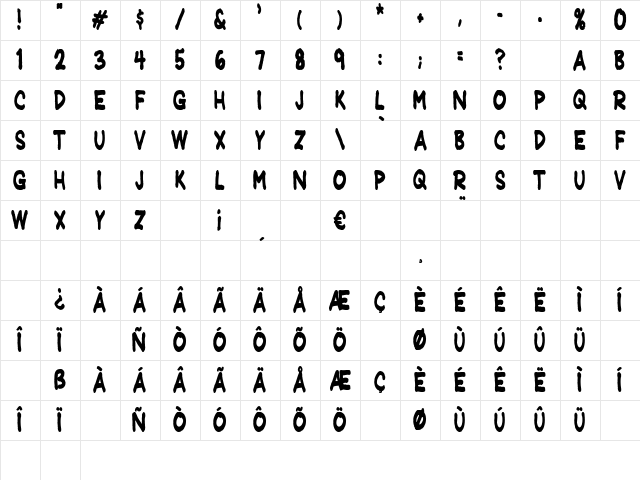
JeffreyPrint JL Condensed Regular
Foundry: Jeff's Fonts & Dingbats
Designer: Jeffrey N. Levine
Design Context for JeffreyPrint JL Condensed
JeffreyPrint JL Condensed is a composed and adaptable typeface that performs quietly and consistently across a wide range of design contexts. Its narrow stance lets it pack a punch even in space-constrained designs.
Pro Tip: Use JeffreyPrint JL Condensed in both headline and body roles to test its range before committing to a single application.